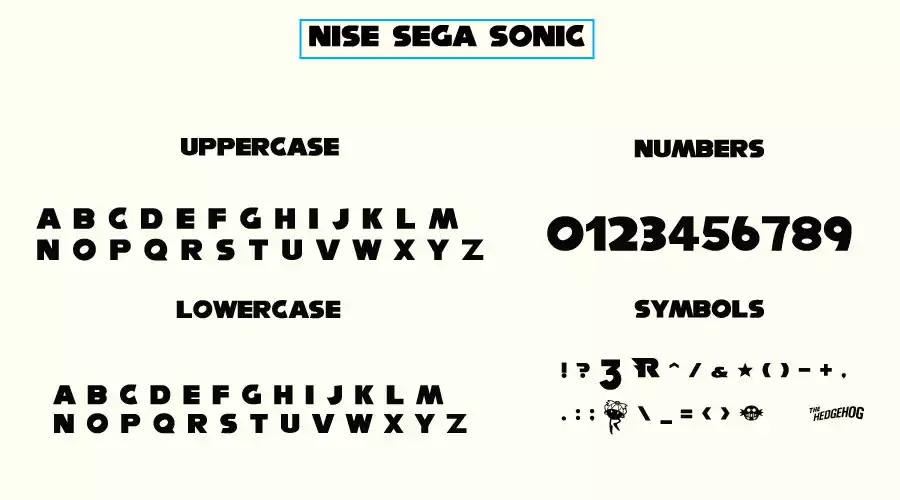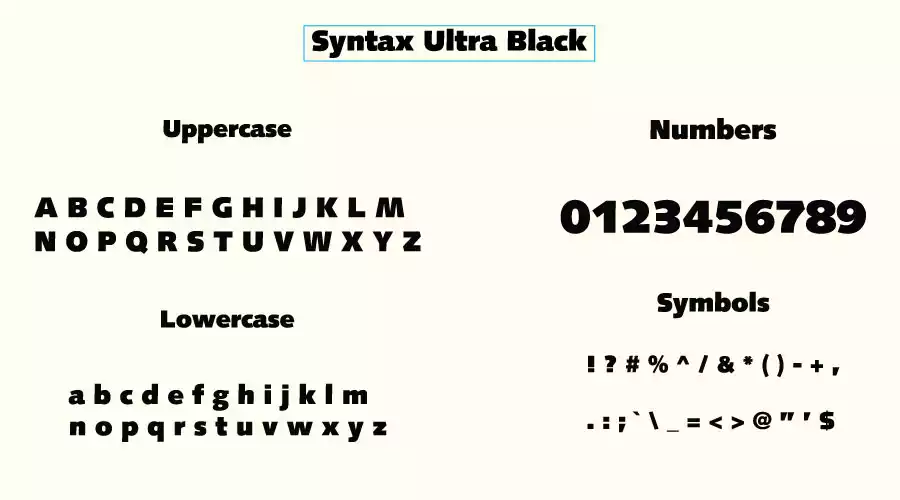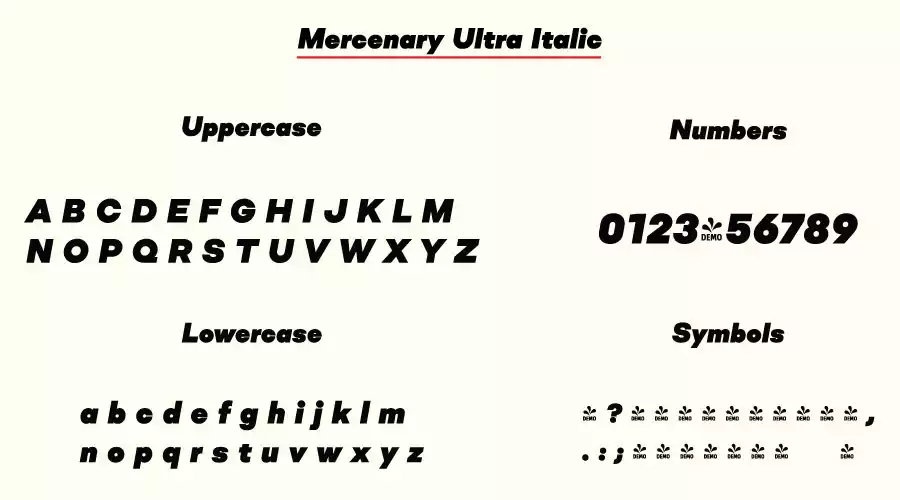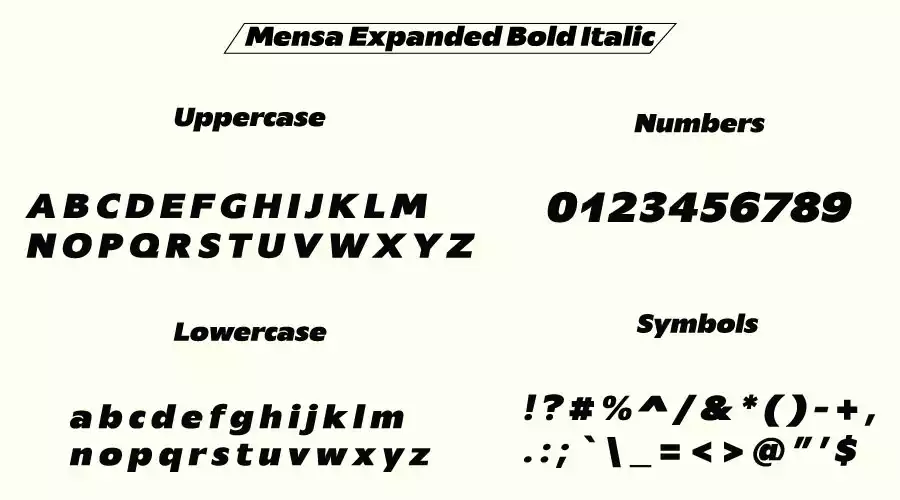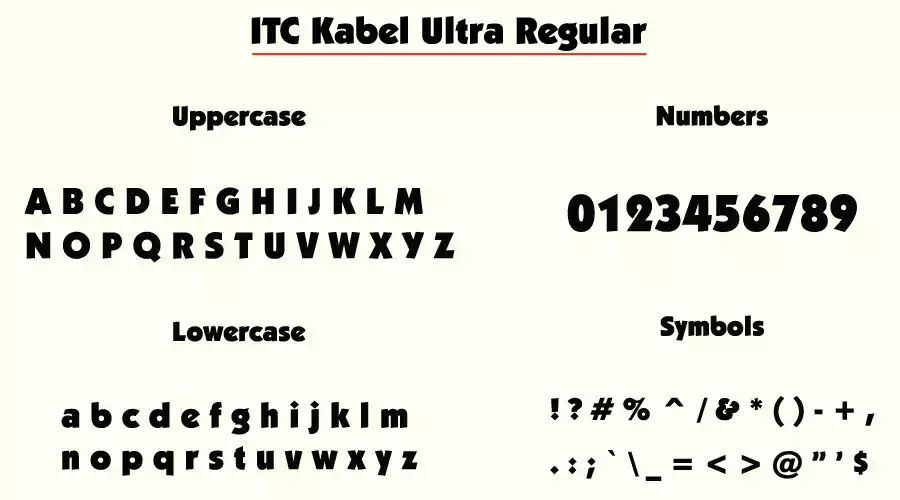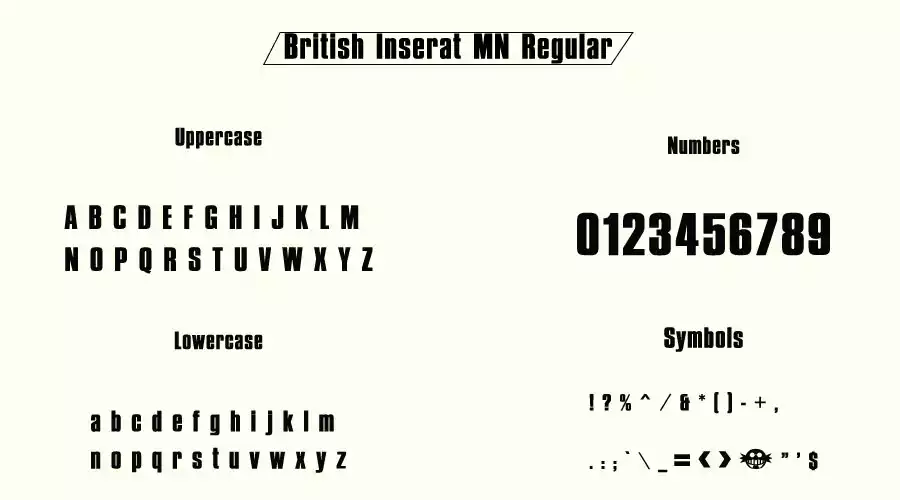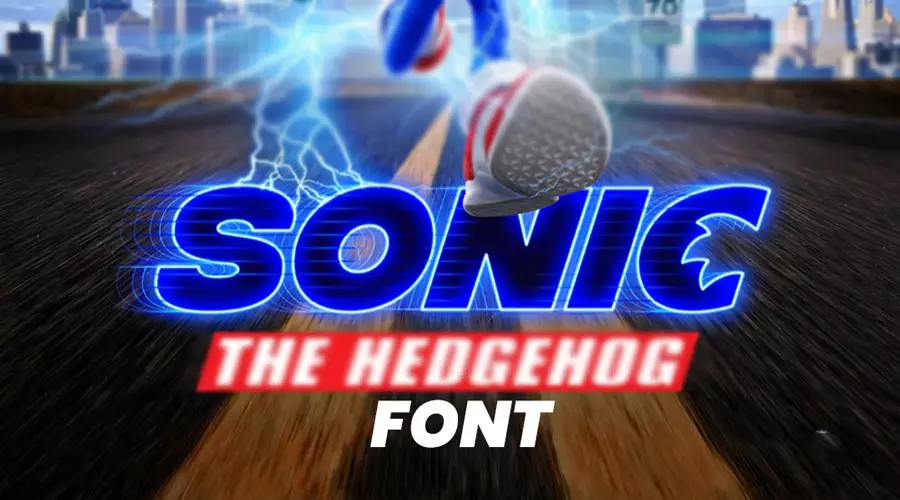
About Sonic the Hedgehog
Sonic the Hedgehog is a popular media franchise that was first introduced as a series of video games published by Sega in 1991. The franchise follows the adventures of Sonic, a blue hedgehog with superhuman speed, as he battles against villains such as Dr. Eggman to protect the world. It has since grown to include numerous games, TV shows, and other media and has sold over 800 million copies worldwide.
There have also been several movies based on the Sonic the Hedgehog franchise, with the most recent being Sonic the Hedgehog and its sequel, Sonic the Hedgehog 2, both released in 2020 and 2022, respectively. A third movie is planned for release in 2024.
About the Sonic Font
The Sonic font is used in the franchise’s logo and branding materials and has consistently been the same font, called Nise Sega Sonic, for many years. However, in the recent movies Sonic the Hedgehog and Sonic the Hedgehog 2, the main word “Sonic” in the title is different from the Nise Sega Sonic font. After researching, it was found that the font used in these movies is called “Mercenary (Ultra Italic)”.
To provide more information about the fonts used in the Sonic the Hedgehog franchise, a list has been compiled below so that you can get all the information about your favorite “Sonic Font.”
1. Nise Sega Sonic Font
Nise Sega Sonic Font is a popular fancy cartoon font inspired by the video game character Sonic the Hedgehog. It is used in the Sega Sonic logo and is perfect for adding a touch of nostalgia to designs, as it is reminiscent of the retro video game era. It can be used in various design projects, such as posters, banners, t-shirts, and logos, due to its bold, blocky style.
2. Syntax (Ultra Black) Font
Syntax Font is a typeface created by Hans Eduard Meier and published by Linotype. It was first released in 1968 by D. Stempel AG and has become a popular choice for various design projects. The Syntax Fonts Ultra Black style was used for the word “Sonic” in the logo for Sonic & All-Stars Racing Transformed.
3. Mercenary (Ultra Italic) Font
Mercenary is a modern sans-serif font designed by Miller Type Foundry. It has clean lines and a minimalist design, making it suitable for a wide range of applications. It is available in a range of weights, including the Ultra Italic style, which was used in the Sonic the Hedgehog movies released in 2020 and 2022. The letters “S” and “O” in the word “Sonic” were formed using this font.
4. Mensa (Expanded Bold Italic)
Mensa is a sans-serif typeface created by Nicholas Garner and published by AVP. It is a versatile font that can be used in various design projects, such as magazines, books, and websites. The Mensa fonts Expanded Bold Italic style was used in the Sonic the Hedgehog movie series for the word “Sonic.” The letters “N,” “I,” and “C” were formed using this font.
5. British Inserat (MN) Font
British Inserat MN Regular is a sans-serif font designed and trademarked by GST Software plc in 1994. It was copyrighted by Mecanorma International. The font is known for its clean lines and minimalistic design, making it suitable for a wide range of design projects.
In the Sonic the Hedgehog movie series, the British Inserat MN regular font was used for the words “THE HEDGEHOG.” It was chosen for its legibility and professional appearance, adding a polished look to the movie titles.
6. ITC Kabel (Ultra)
ITC Kabel’s Ultra style font was used for the logo of the game “Sonic at the Olympic Games.” In the title, the words “AT THE OLYMPIC GAMES” were formed using this font. Its clean lines and bold style make it well-suited for use in logos and other branding materials. It is a reliable and professional font that is sure to make a strong impact.